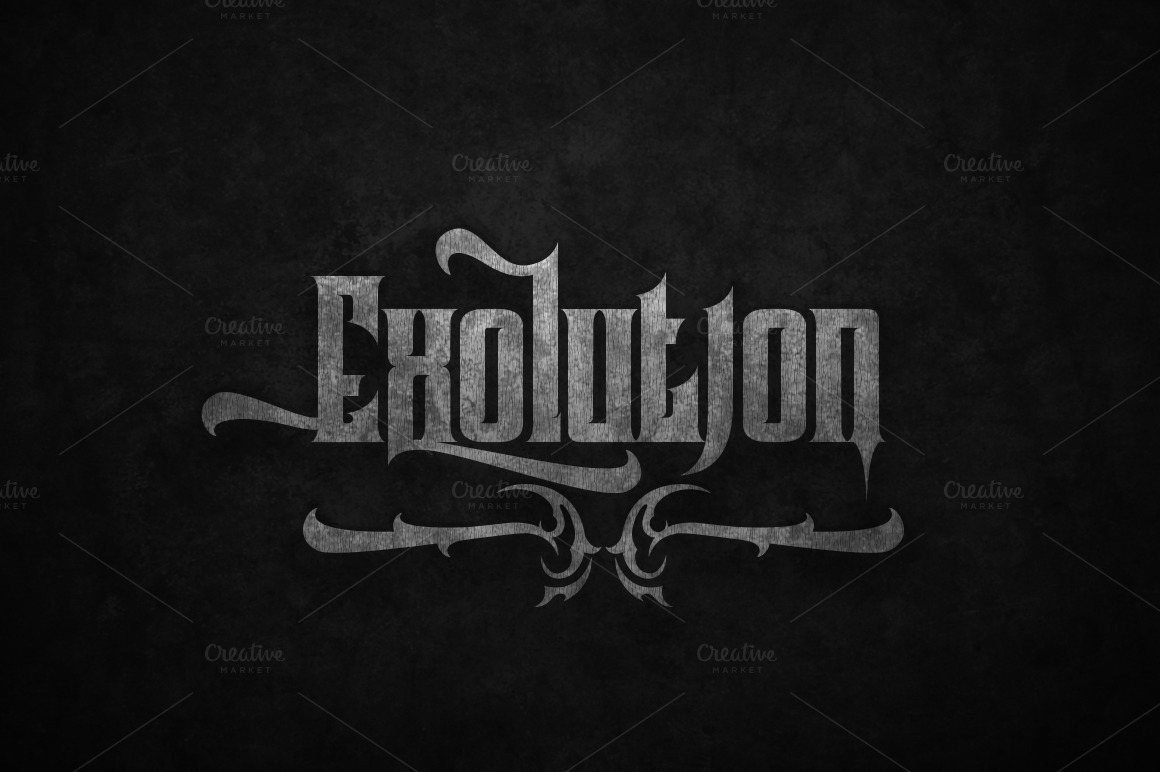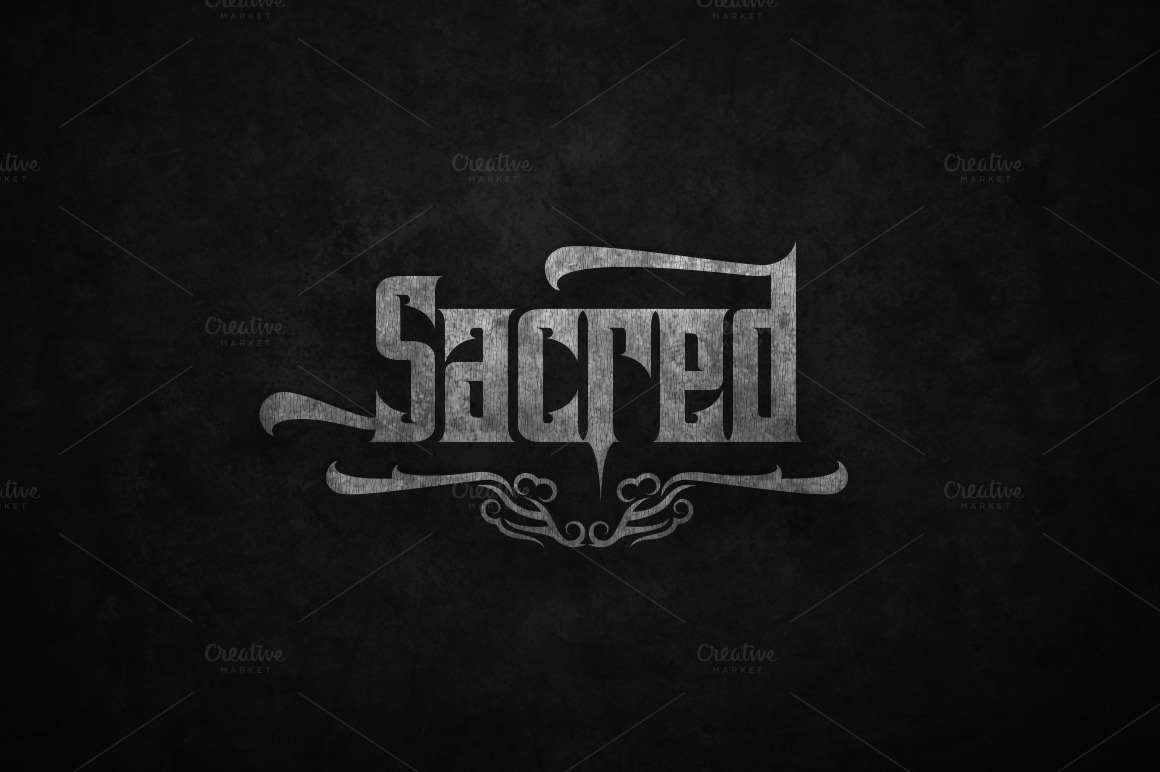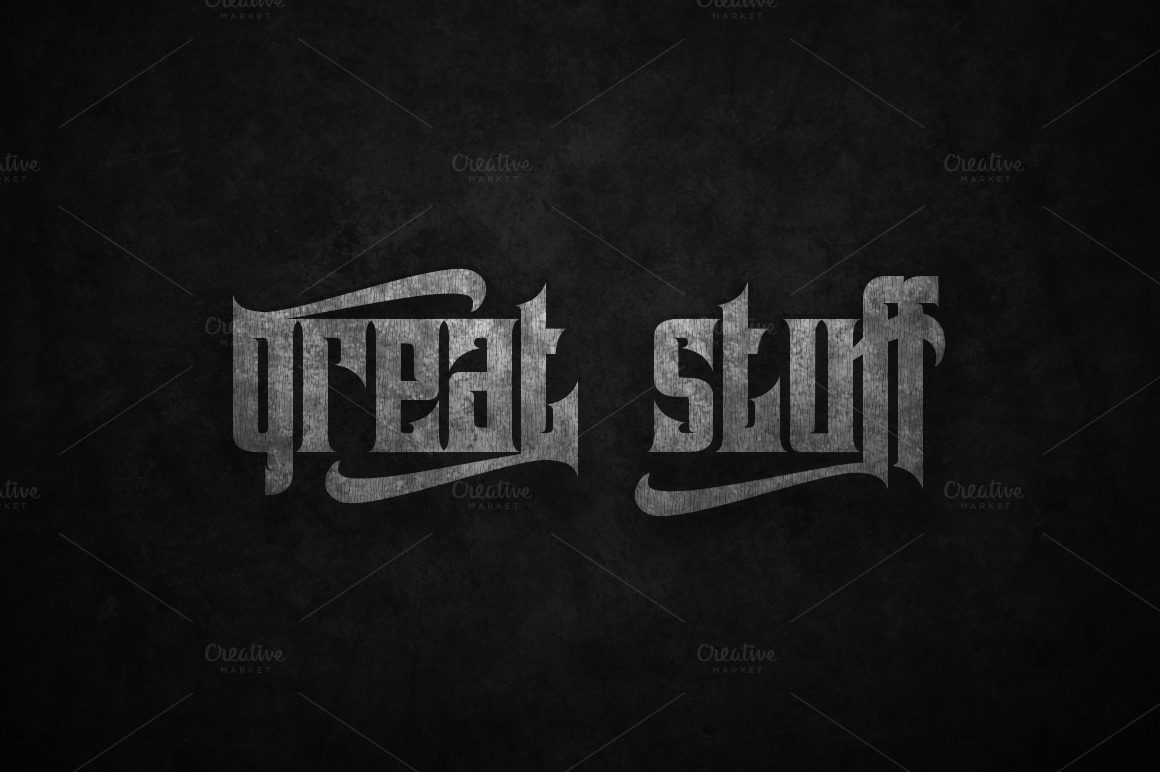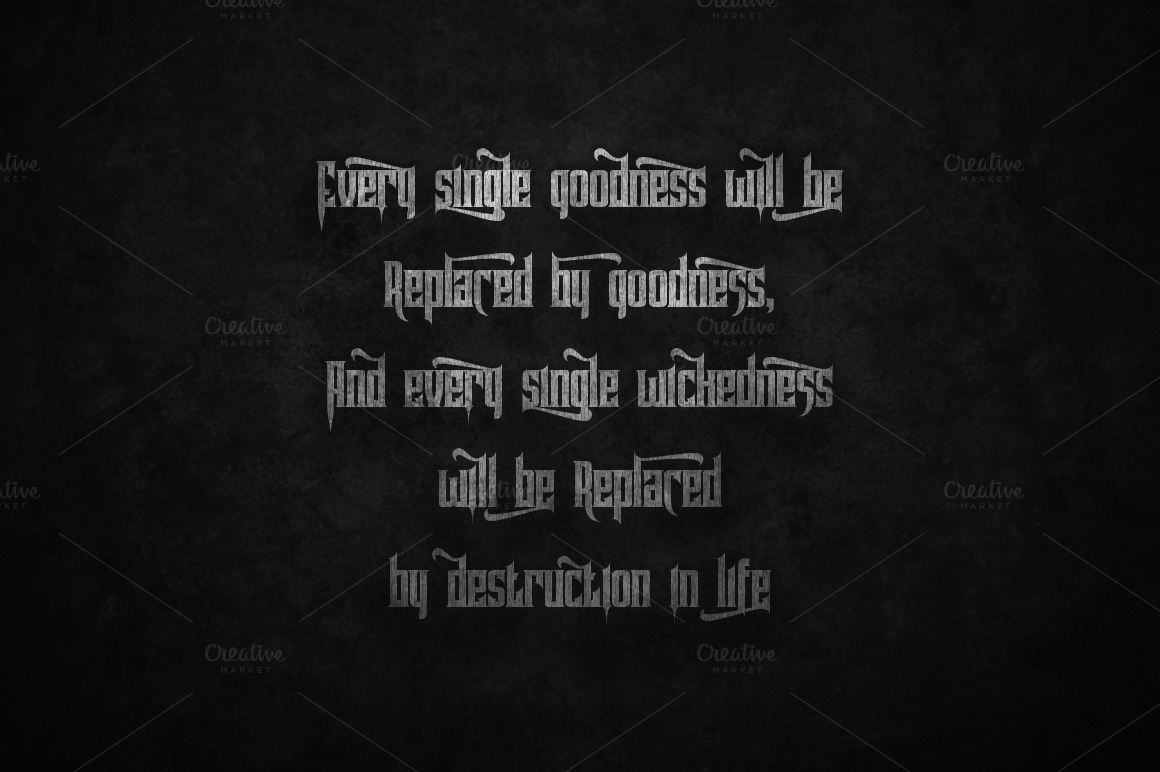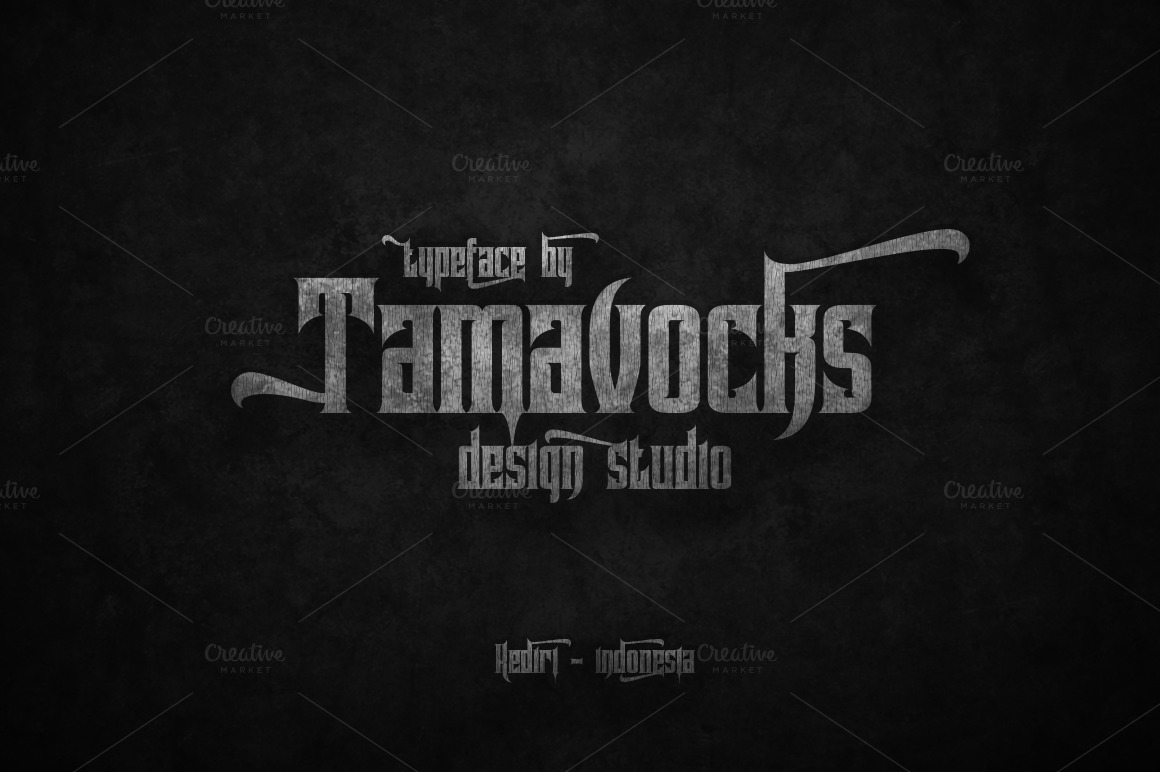
Pindunk Typeface
Pindunk is a typeface inspired from gothic and swash style. The Pindunk typeface includes a full set of uppercase and lowercase letters as well as multi-lingual and currency support, numerals, punctuations, alternates, ligatures and some extra glyphs.